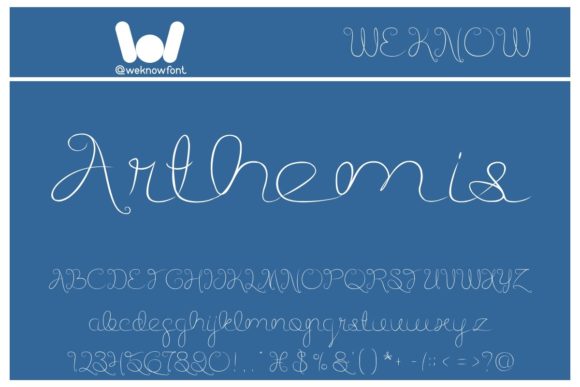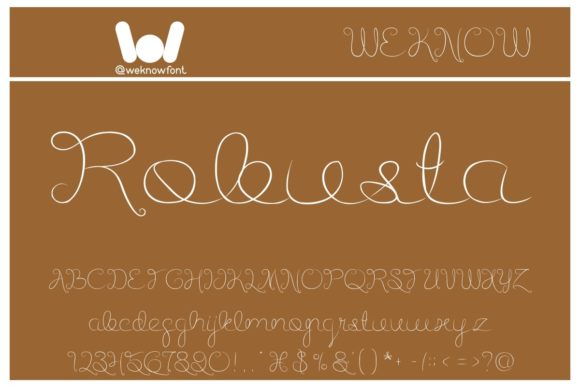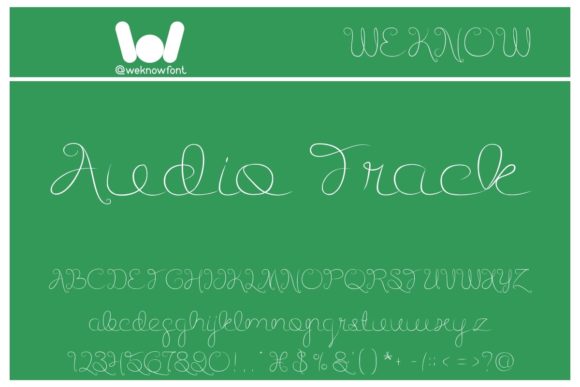
Introduction to Listening Font
Remember that moment when you received a handwritten letter from a loved one, and the personal touch it brought to your day? For designers, creating that same sense of warmth and connection in digital designs can be just as powerful. One way to achieve this is by incorporating the delicate Listening Font into your creative projects.
Whether you’re crafting personalized letters, party invites, or get-well cards, Listening Font adds a touch of elegance and sophistication. Its high-quality design makes it an ideal choice for designers looking to elevate their work. Plus, its transparent background allows for seamless integration with various design elements, making it a valuable resource for any creative project.
Key Features of Listening Font
- Unique, hand-drawn design with a modern twist, perfect for creative projects
- High-quality font with transparent background, ideal for use on any background
- Includes 6 styles: Regular, Bold, Italic, Bold Italic, Outline, and Fill, offering versatility for different designs
- Perfect for use in various creative projects, including logos, posters, and digital interfaces
Honest Review: Listening Font
As a designer, I’m always on the lookout for high-quality design resources to elevate my creative projects. The Listening Font is one such find that has caught my attention. Here’s my honest review:
What works well: ✨ The font’s unique design aesthetic is perfect for creating visually striking compositions. Its clean lines and minimalistic feel make it an excellent choice for modern designs. The high-quality vector format ensures crisp and clear rendering, even at large sizes.
What doesn’t: ⚠️ While the font is free to download, I wish it had a transparent background option for seamless integration with other design elements. Additionally, the font family is limited to a single style, which might not be ideal for projects requiring multiple font weights.
- High-quality vector format
- Transparent background not available
- Single font style
Overall, the Listening Font is a great addition to any designer’s toolkit, especially for modern and minimalist design projects. With a little creative manipulation, its limitations can be overcome. I’d definitely recommend it as a free design resource, but with the caveat that it may not be the best fit for projects requiring complex typography.
The Listening Font is ideal for creative projects such as logos, branding materials, and marketing collateral. It is also suitable for academic and educational projects that require a professional and elegant design.